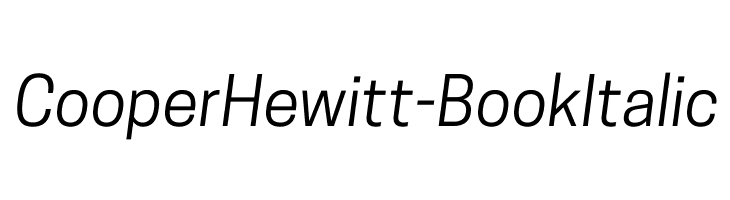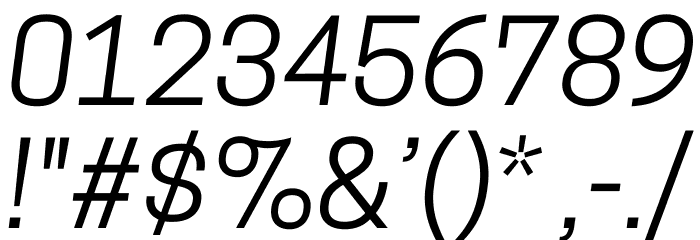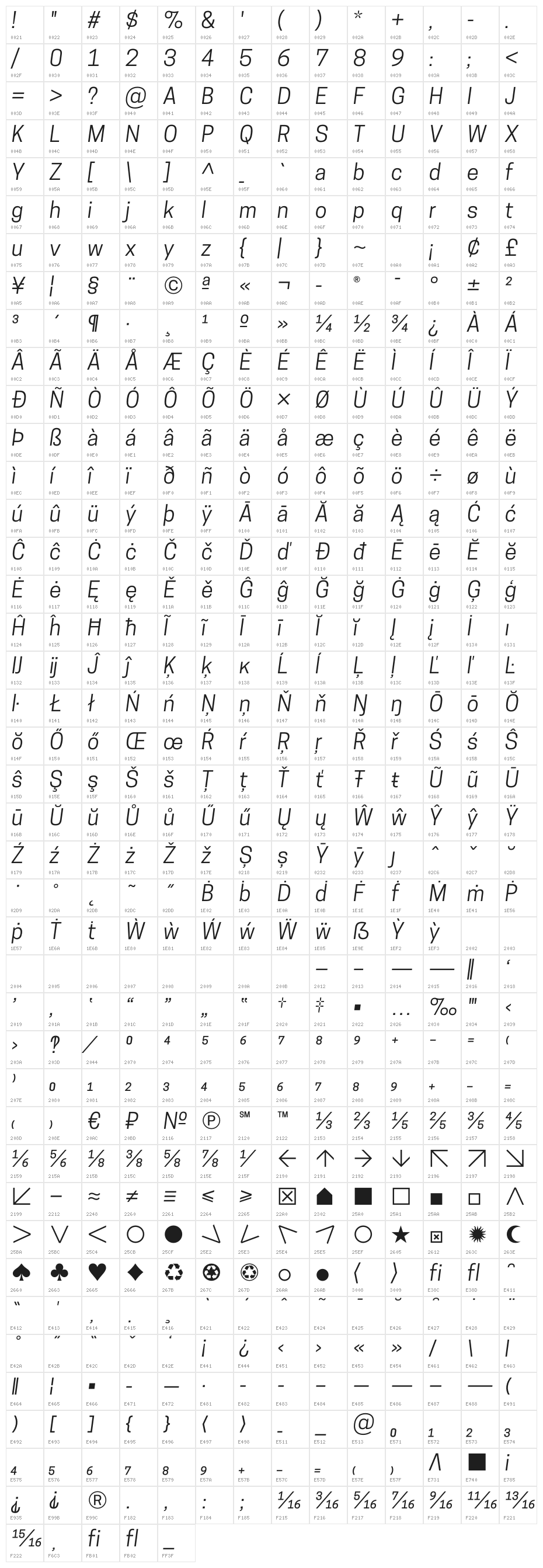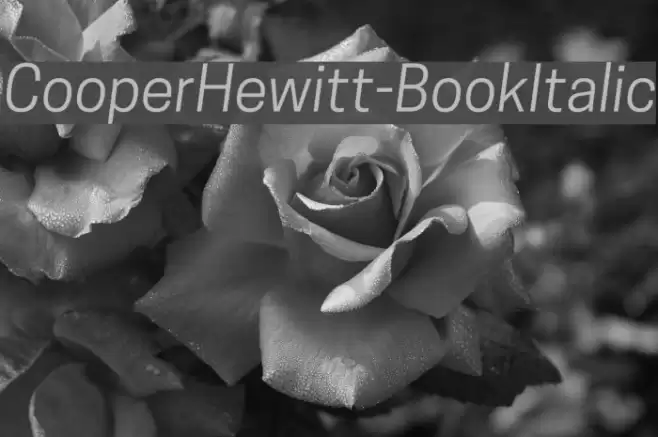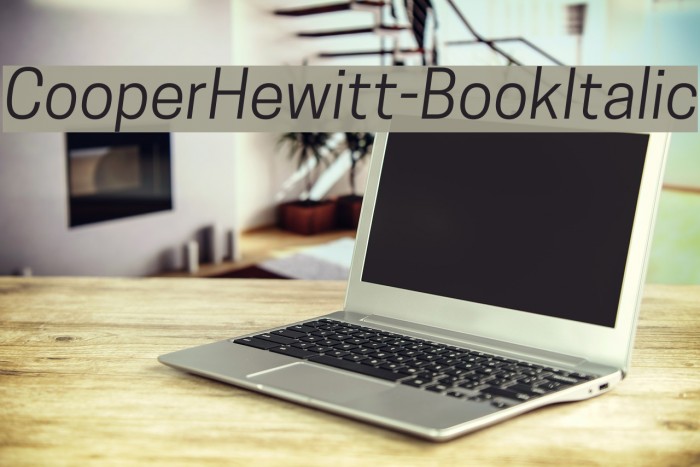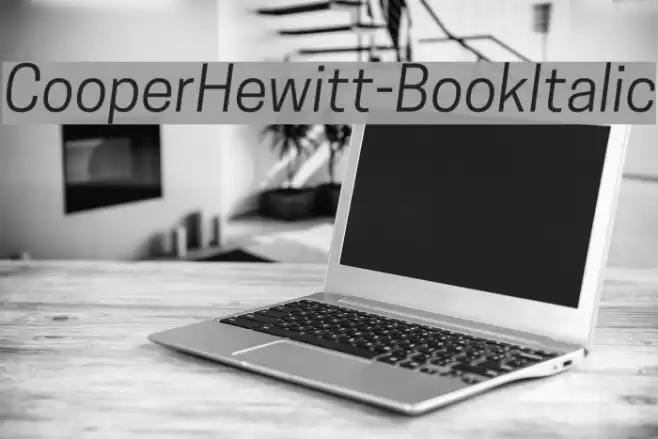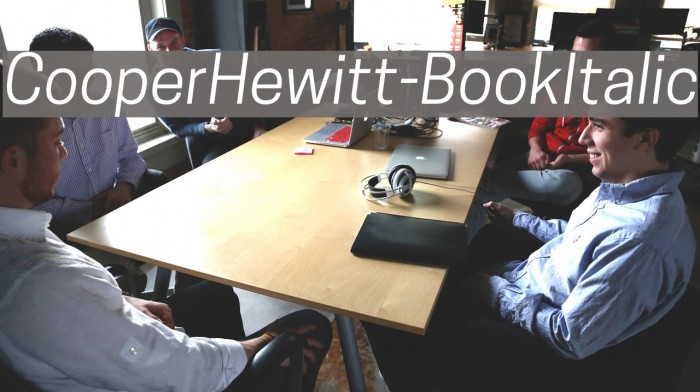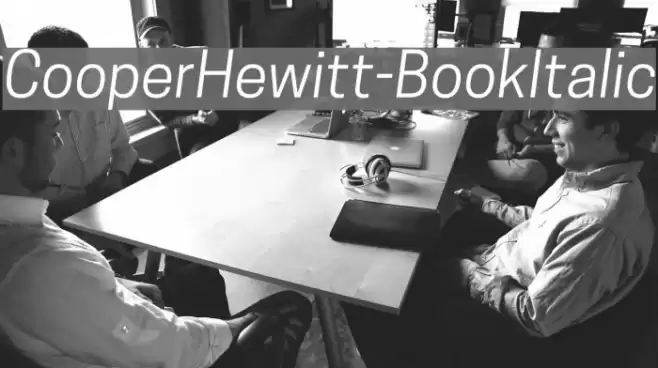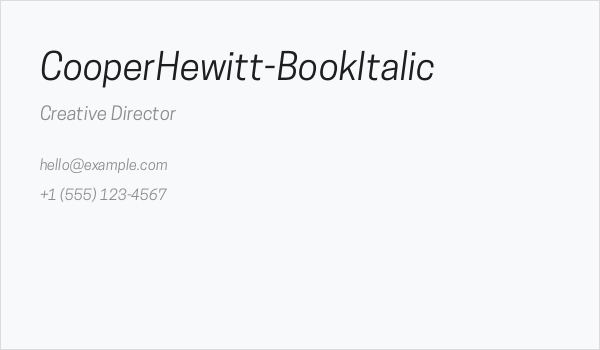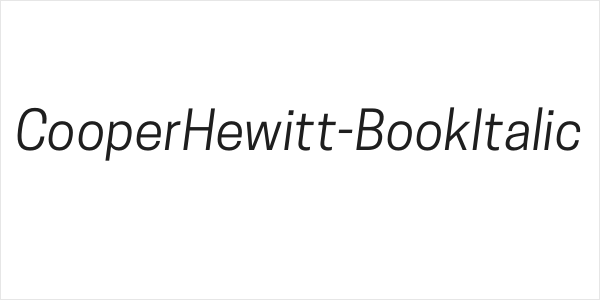
CooperHewitt-BookItalic Font
CooperHewitt-BookItalic Description
This font features a clean, modern sans-serif style with a subtle italic slant, giving it a dynamic and contemporary appearance. The characters are well-proportioned, with a consistent stroke width that maintains readability across various sizes. The uppercase letters are bold and commanding, while the lowercase letters are more subdued, offering a nice balance. The numerals are clear and straightforward, making them suitable for both display and text purposes. Special characters are included, maintaining the font's sleek and professional look. Overall, this font is versatile, suitable for a range of design projects.